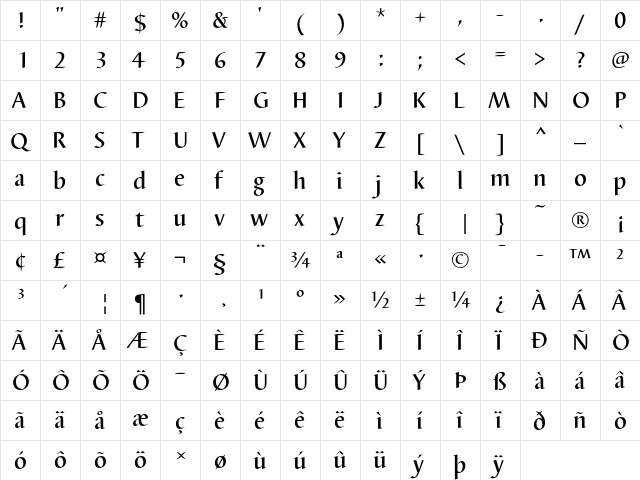
Barbedor T Medium
Design Context for Barbedor T Typeface
Barbedor T takes a measured approach to typography — its balanced proportions and neutral character make it a reliable workhorse for both digital and print work.
Pro Tip: Use Barbedor T in both headline and body roles to test its range before committing to a single application.